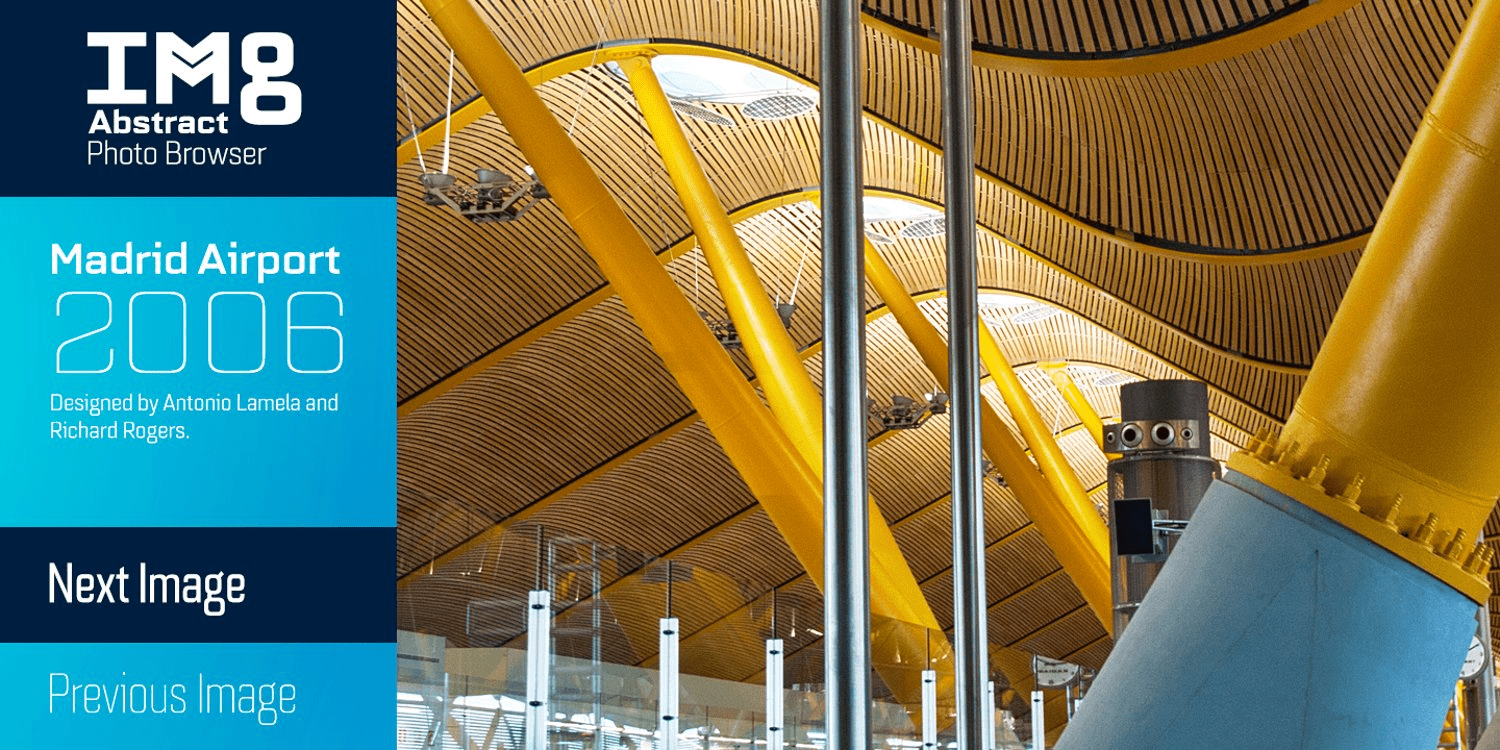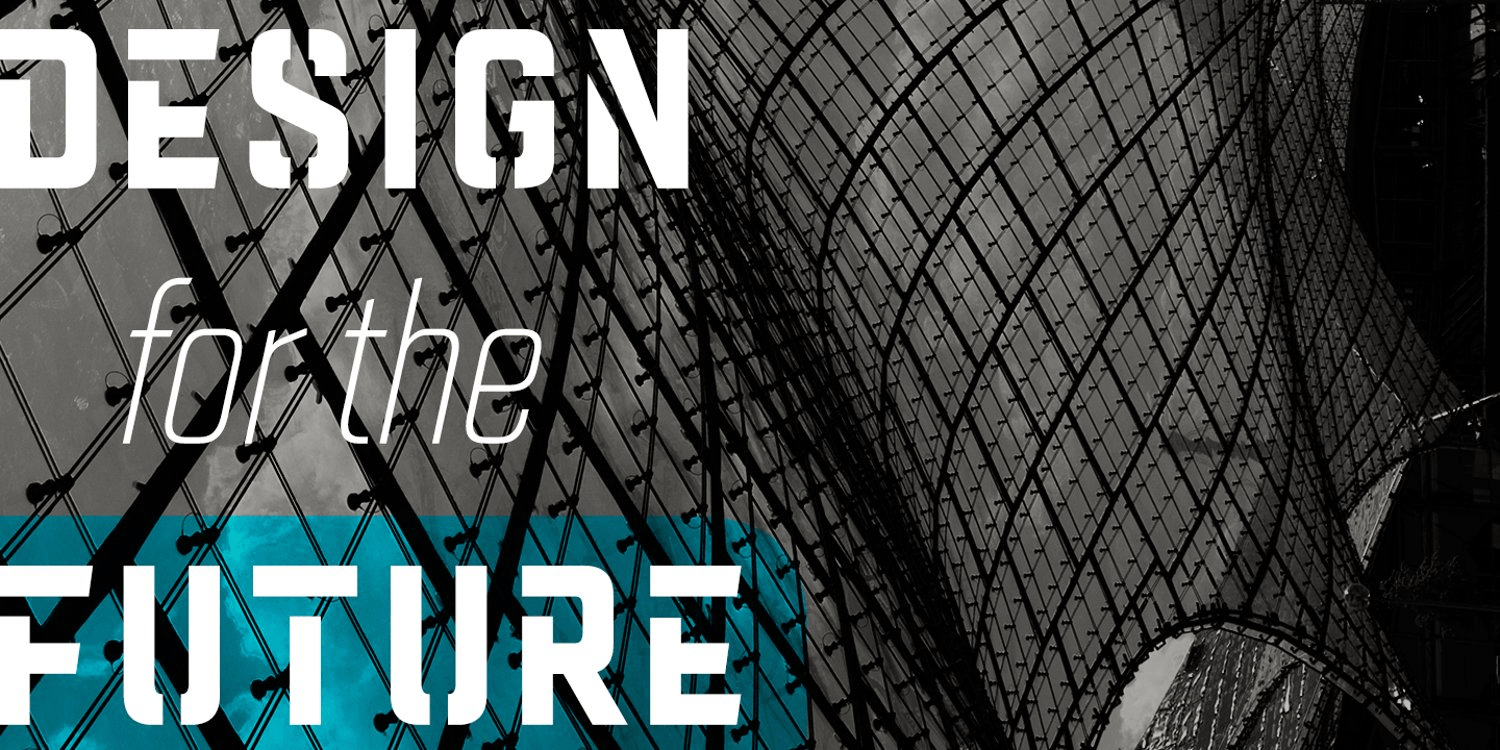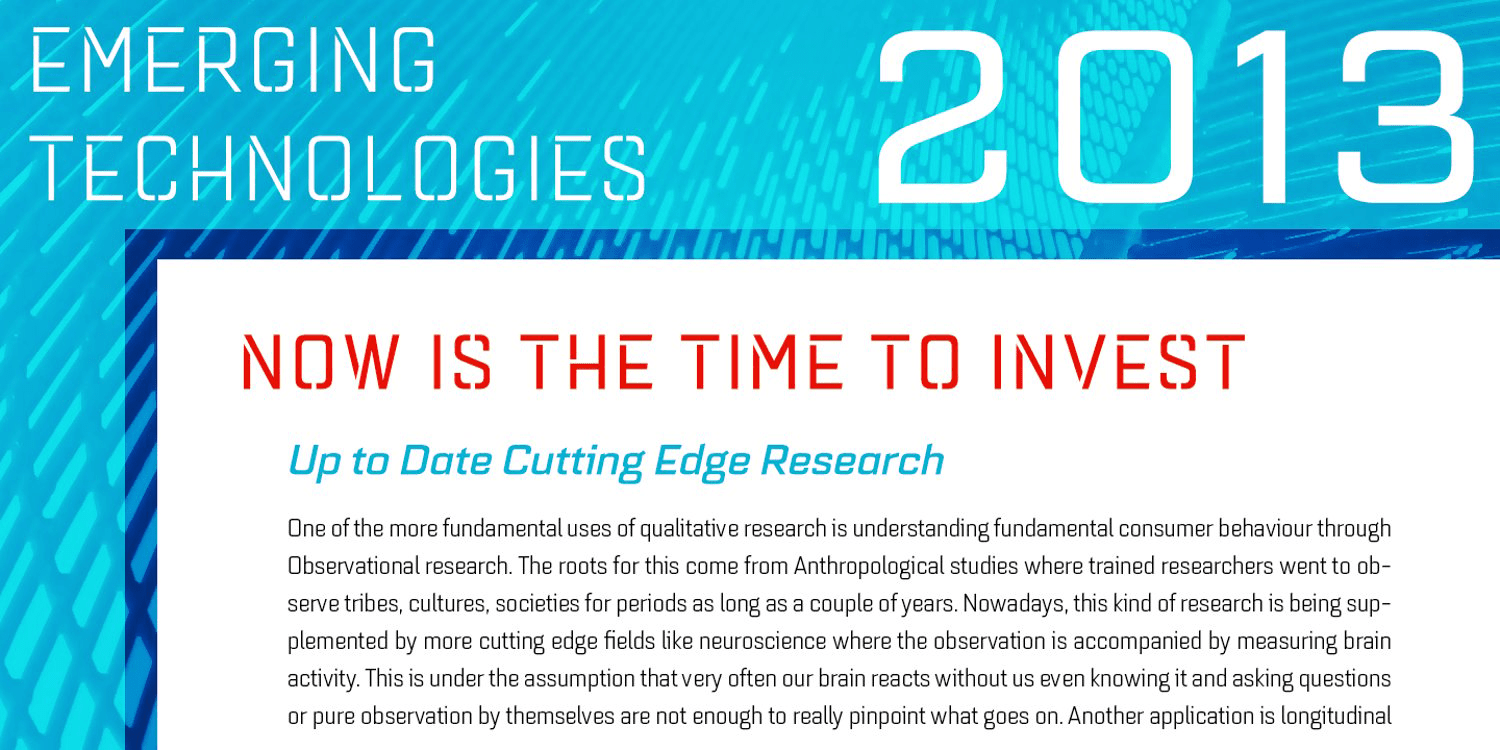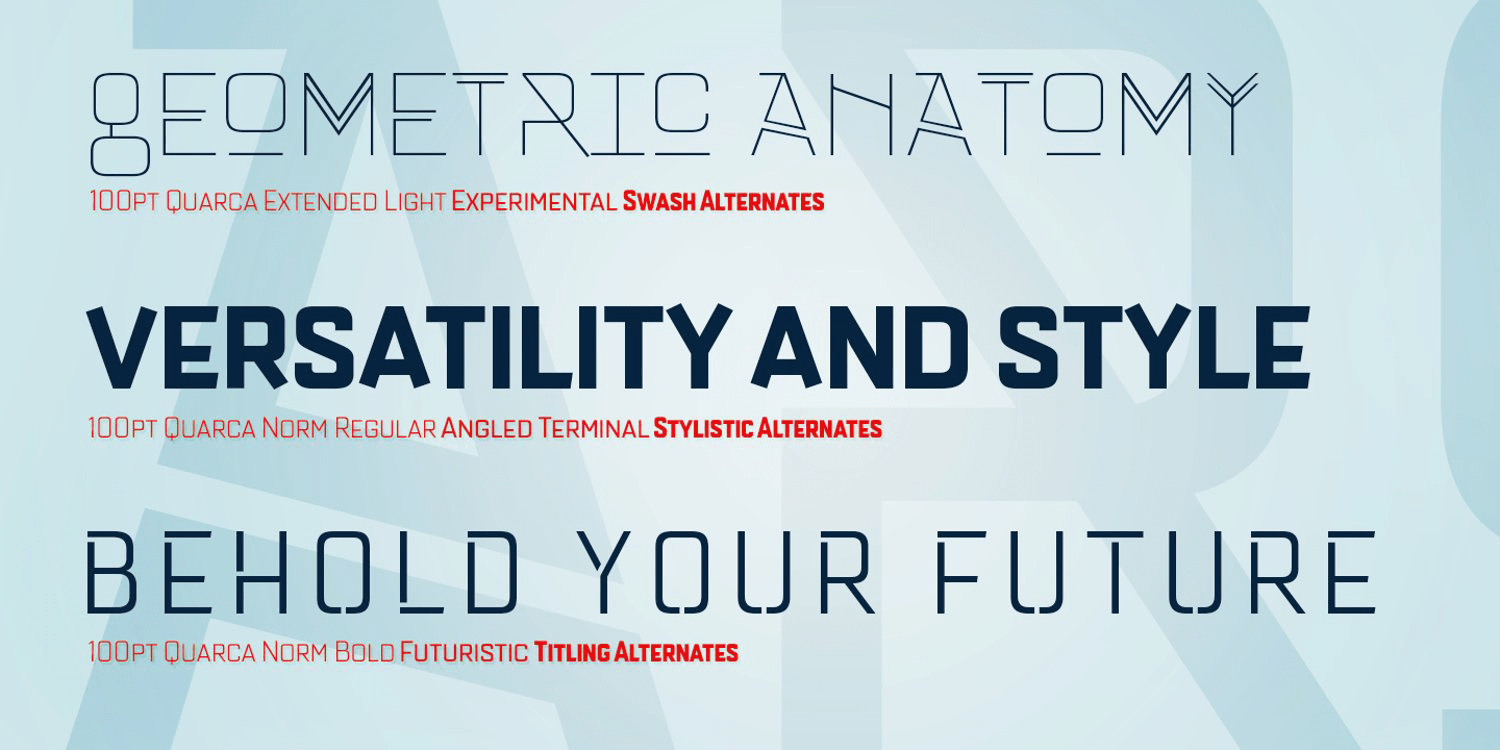
About Quarca
Quarca's masculine power runs strong across the page with bold self-assurance and a raw energy that courses through its thick veins. Don't think the continuous, smooth geometry of this semi-modular face is captively chained to the grid, though.…